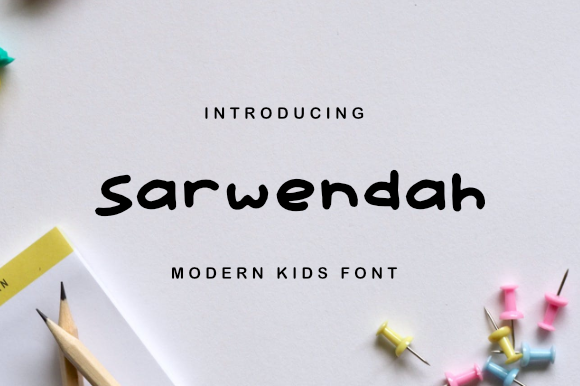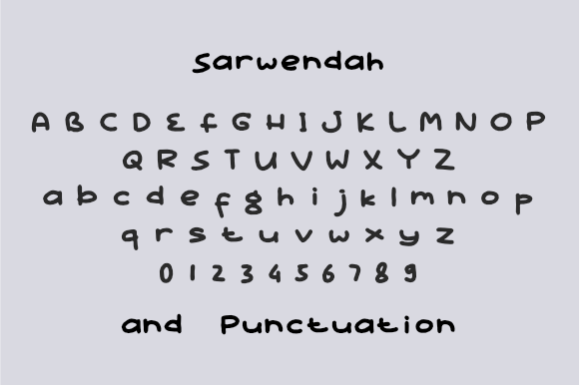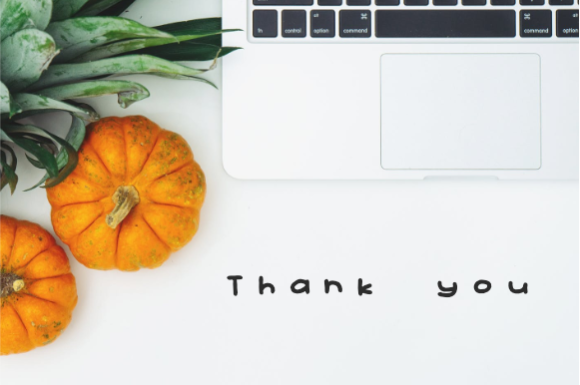
Sarwendah
About Sarwendah Font
Sarwendah is a cute and modern handwritten font. This font is perfect for children themed designs, especially when combined with bright colors.